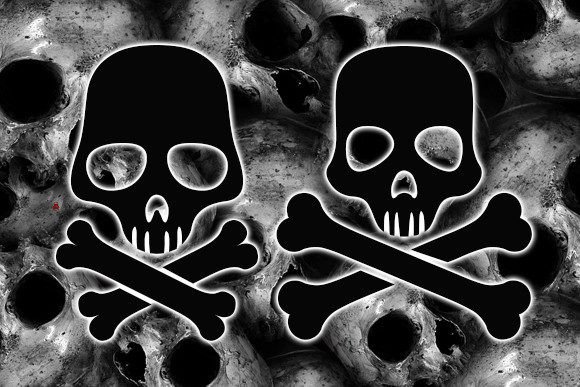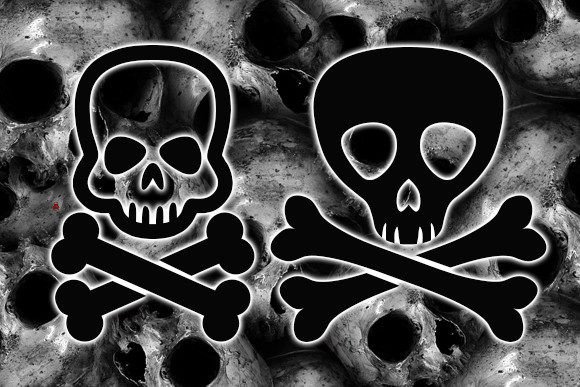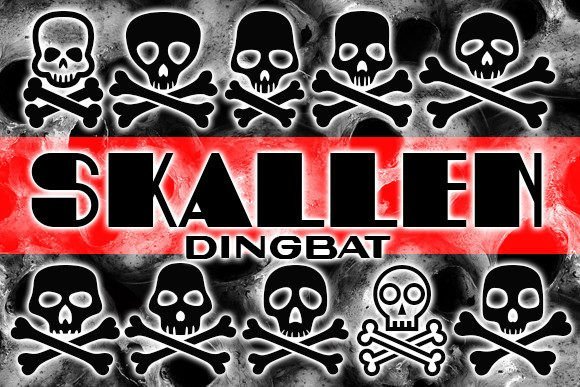
Introduction to Skallen Font
Skallen is a unique skull dingbat that will look awesome on any of your designs.
Use this dingbat on posters, flyers, and t-shirts .